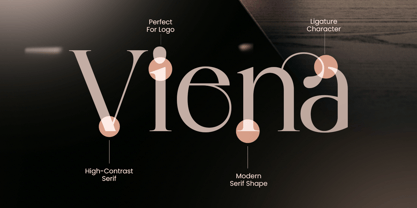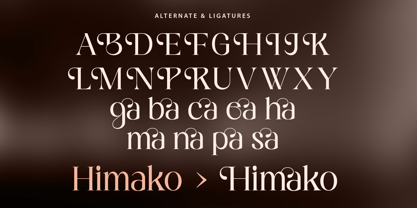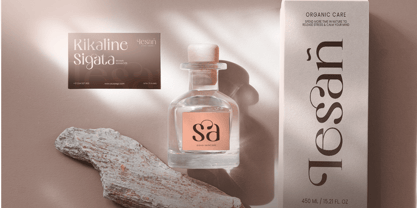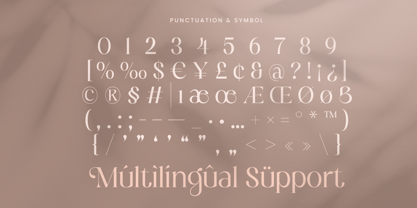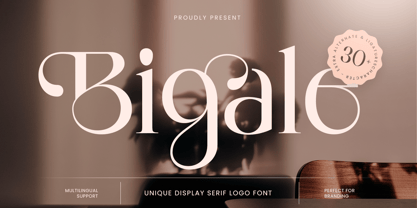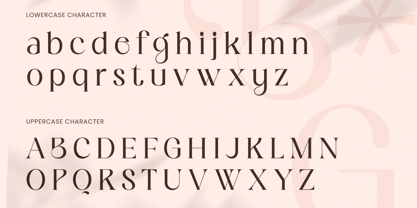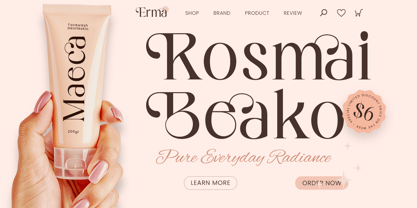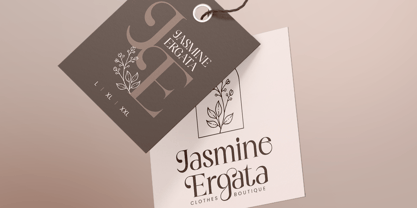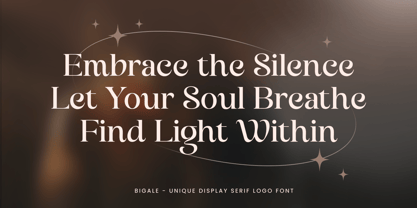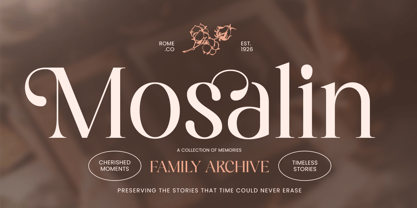
Bigale
La familia tipográfica Bigale fue diseñada por Zamroni Hamzah y publicada por Sensatype Studio. Bigale contiene 1 estilos. Más información sobre esta familia
Bigale is a unique display serif logo font designed to create distinctive and memorable visual identities. Featuring elegant serif details, expressive letterforms, and a refined display style, this typeface is perfect for luxury logos, branding projects, editorial layouts, packaging, posters, and premium creative designs.
Crafted for designers who want typography with personality, Bigale combines classic serif sophistication with a unique modern character. Its distinctive shapes help brands communicate confidence, creativity, and exclusivity while maintaining a polished and professional appearance.
Whether used for fashion brands, boutique identities, beauty products, magazine titles, invitations, or premium marketing materials, Bigale delivers a strong and elegant typographic presence across both print and digital media.
Bigale – Unique Display Serif Logo Font Features
• Unique display serif style with strong branding character
• Perfect for logos, headlines, packaging, editorials, and premium identities
• Expressive letterforms with elegant visual details
• Ideal for fashion, beauty, lifestyle, creative, and luxury brands
• Uppercase, lowercase, numerals, and punctuation included
• OpenType features for enhanced typographic flexibility
Create a distinctive and premium identity with Bigale – the perfect display serif font for unique logos, creative branding, and sophisticated design projects.